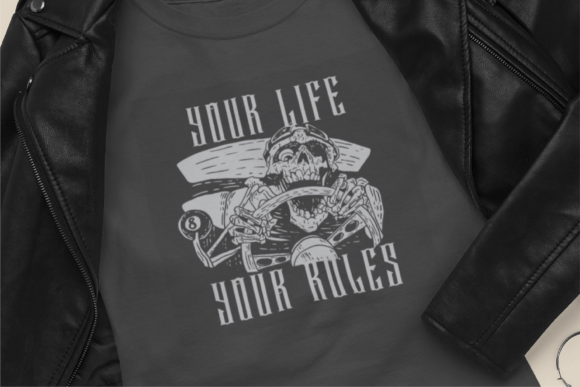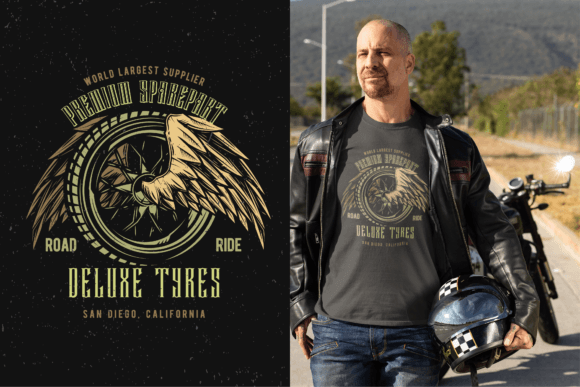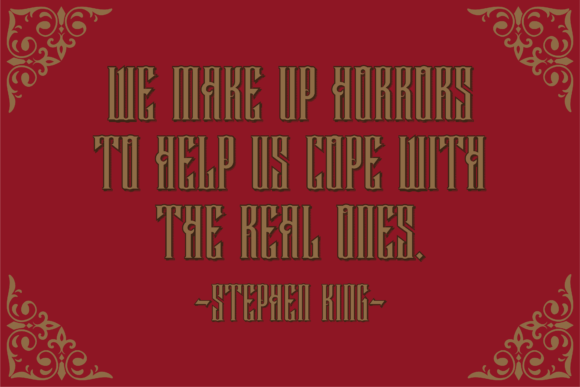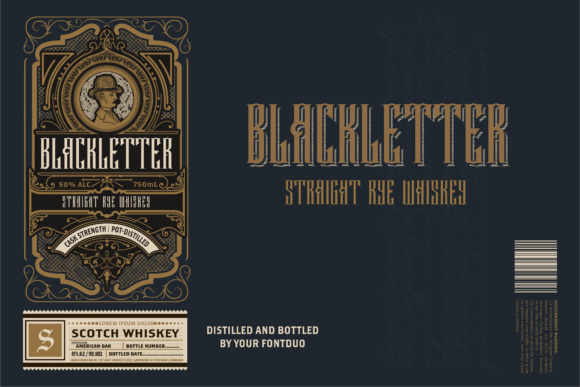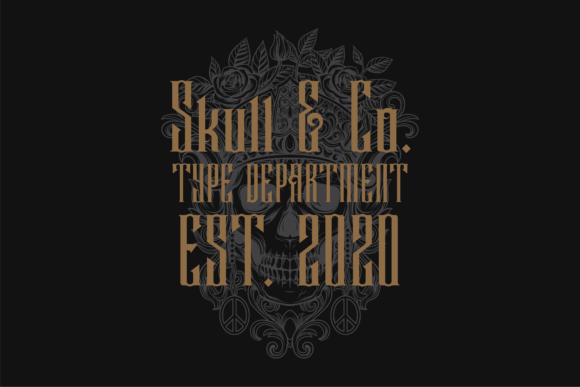
Unleash the Power of Grotesque Font: Elevate Your Designs with Bold and Daring Typography
Are you tired of using the same old fonts in your designs? Do you want to add a touch of elegance and sophistication to your product packaging, branding, or other projects? Look no further than the Grotesque font, a splendid blackletter font that is sure to impress with its stylish features. In this article, we’ll dive into the world of Grotesque font, exploring its unique characteristics, uses, and benefits for designers and crafters.
What is Grotesque Font?
Grotesque font is a type of blackletter font that originated in the 19th century. Characterized by its bold, dramatic, and ornate letterforms, Grotesque font is perfect for designs that require a sense of luxury, sophistication, and elegance. With its striking appearance, Grotesque font is sure to grab attention and leave a lasting impression on your audience.
Key Features of Grotesque Font
So, what makes Grotesque font so special? Here are some of its key features:
- Bold and Dramatic Letterforms: Grotesque font features bold, dramatic letterforms that are sure to make a statement in any design.
- Ornate Details: The font is adorned with intricate details, such as flourishes and swashes, that add to its elegance and sophistication.
- High Contrast: Grotesque font features high contrast between thick and thin lines, creating a sense of drama and visual interest.
- Versatile: Despite its bold and dramatic appearance, Grotesque font is surprisingly versatile and can be used in a variety of design contexts.
Uses of Grotesque Font
So, how can you use Grotesque font in your designs? Here are some ideas to get you started:
- Product Packaging: Use Grotesque font to create eye-catching product packaging that stands out on store shelves.
- Branding: Grotesque font is perfect for branding projects that require a sense of luxury, sophistication, and elegance.
- Advertising: Use Grotesque font to create bold and attention-grabbing ads that demand attention.
- Stationery: Add a touch of elegance to your stationery designs with Grotesque font.
Benefits of Using Grotesque Font
So, why should you choose Grotesque font for your designs? Here are some benefits to consider:
- Unique and Memorable: Grotesque font is sure to make your designs stand out and be remembered.
- Elegant and Sophisticated: The font adds a touch of luxury and sophistication to any design.
- Versatile: Grotesque font can be used in a variety of design contexts, from product packaging to branding and advertising.
- Easy to Read: Despite its bold and dramatic appearance, Grotesque font is surprisingly easy to read, even in smaller sizes.
Tips for Using Grotesque Font
Here are some tips to keep in mind when using Grotesque font in your designs:
- Use it Sparingly: Grotesque font is bold and dramatic, so use it sparingly to avoid overwhelming your design.
- Choose the Right Size: Make sure to choose a size that is large enough to be legible, but not so large that it overwhelms your design.
- Pair it with Other Fonts: Consider pairing Grotesque font with other fonts to create visual interest and add depth to your design.
| Font Name | Grotesque Font |
| Author | FontDuo |
In conclusion, Grotesque font is a splendid blackletter font that is sure to impress with its stylish features. With its bold and dramatic letterforms, ornate details, and high contrast, Grotesque font is perfect for designs that require a sense of luxury, sophistication, and elegance. Whether you’re working on product packaging, branding, or other projects, Grotesque font is a great choice for designers and crafters looking to add a touch of elegance and sophistication to their designs.